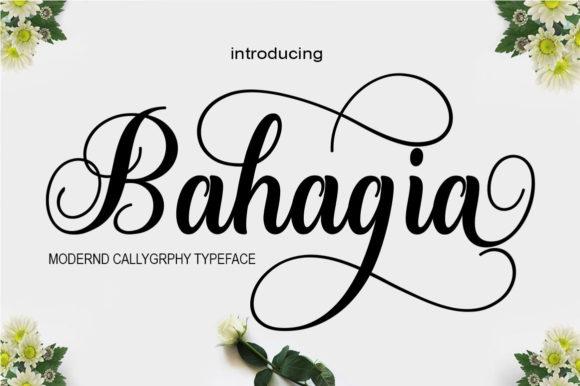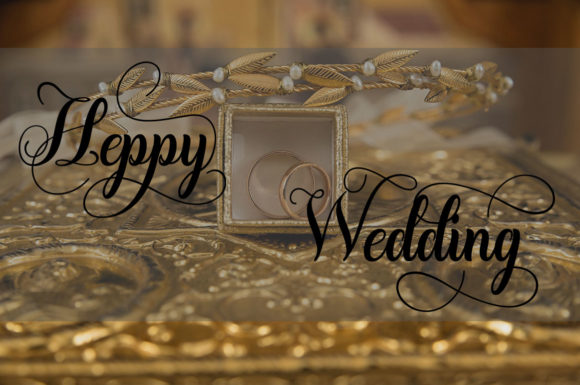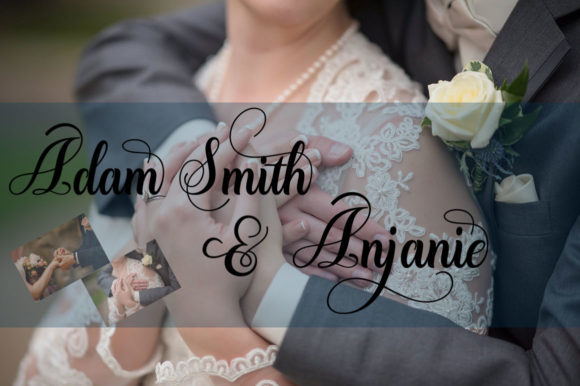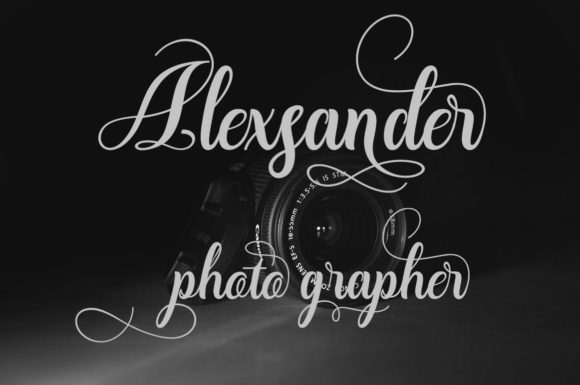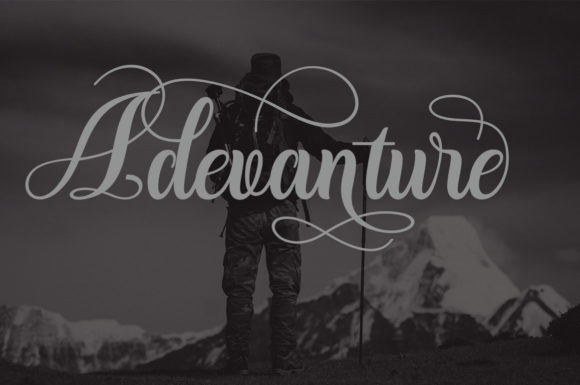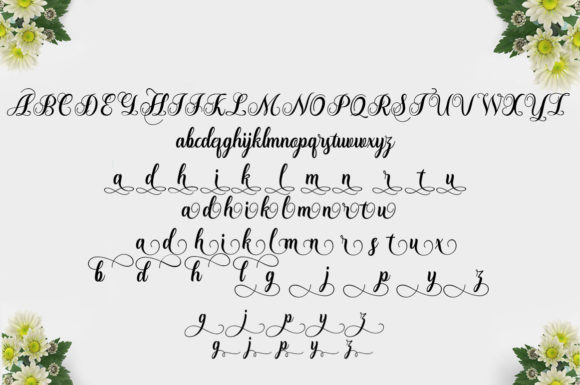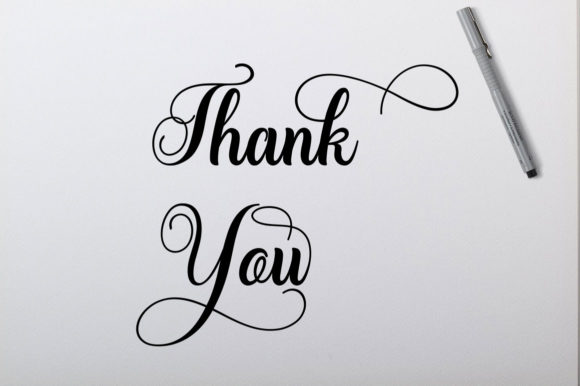
Bahagia Font
About Bahagia Font
The Bahagia is a modern calligraphy font. It was handwritten and includes unique and modern calligraphy forms. It has a natural writing style and is perfect for adding a natural touch to your designs.